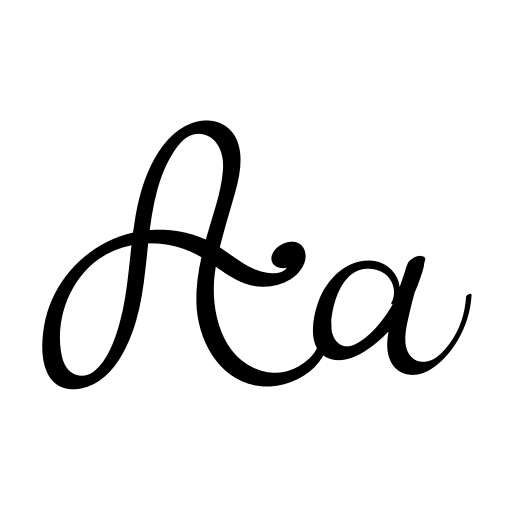
Billy Hatter Personal Use Only is a casual, hand-drawn script font with a friendly and playful feel. Its bold weight and rounded, informal letterforms make it perfect for creative projects, children's materials, and branding that seeks a warm, approachable vibe. This font shines in headlines, logos, and designs where a fun, personal touch is desired.
Billy Hatter Pesonal Use Only Font
About Billy Hatter Pesonal Use Only Font
| Font family | Billy Hatter Pesonal Use Only Font |
| Designer | © Zeenesia 2022 |